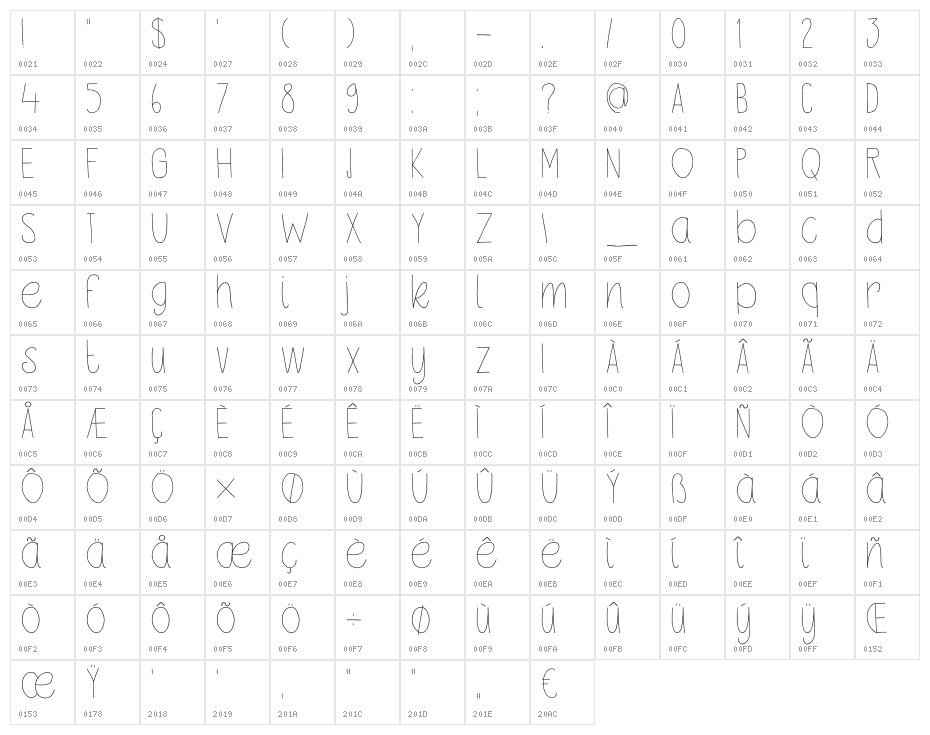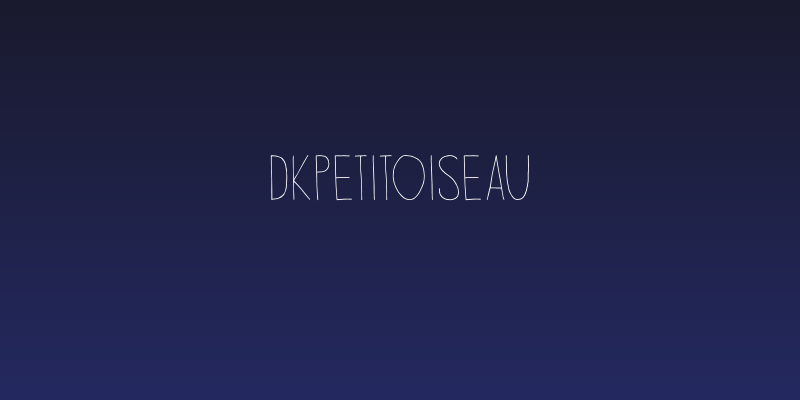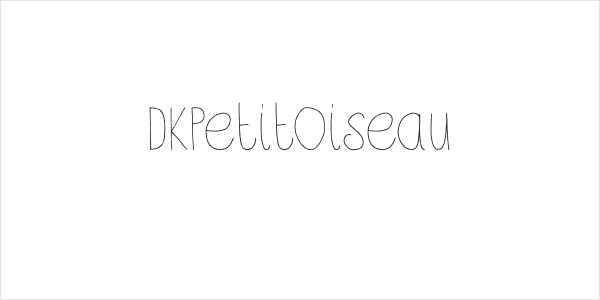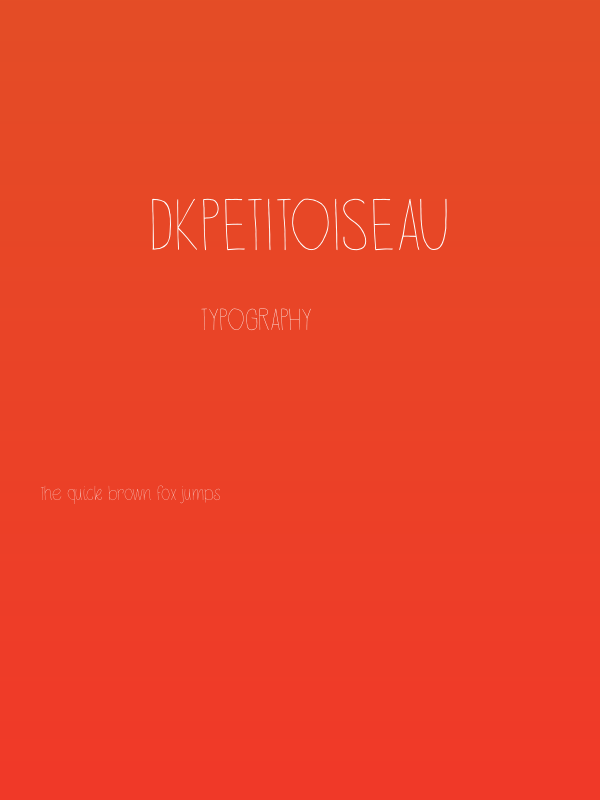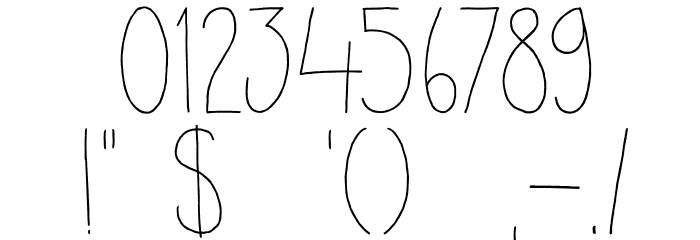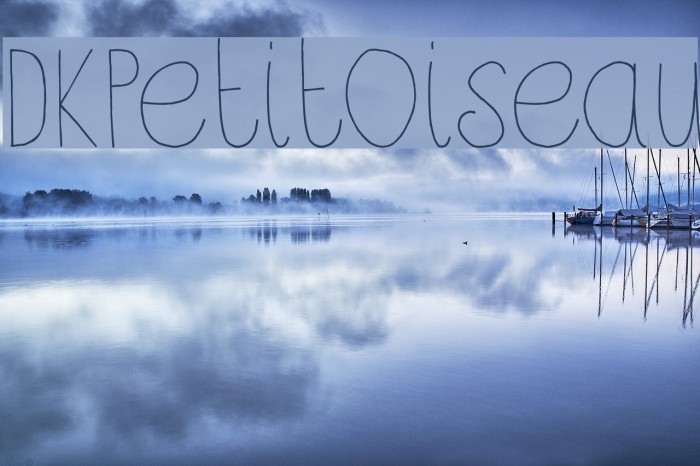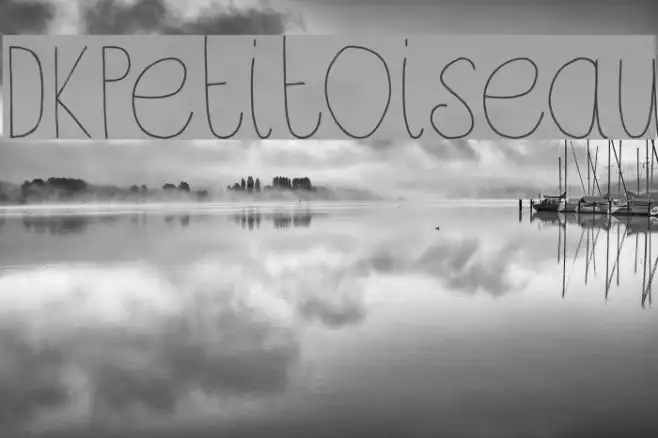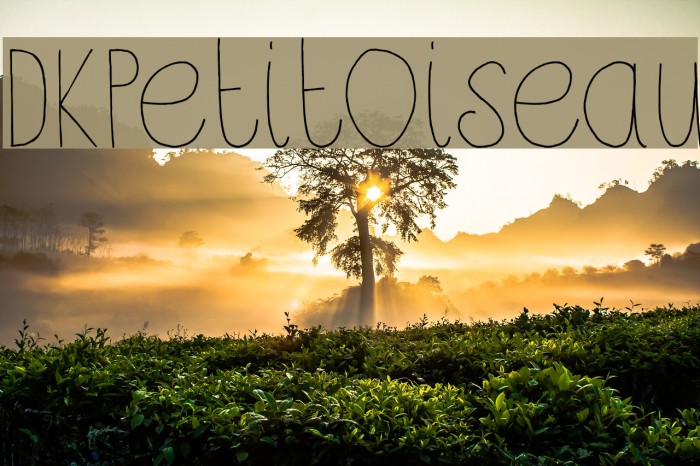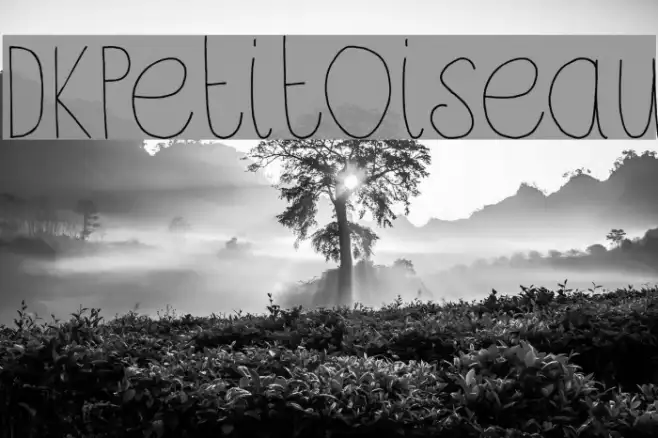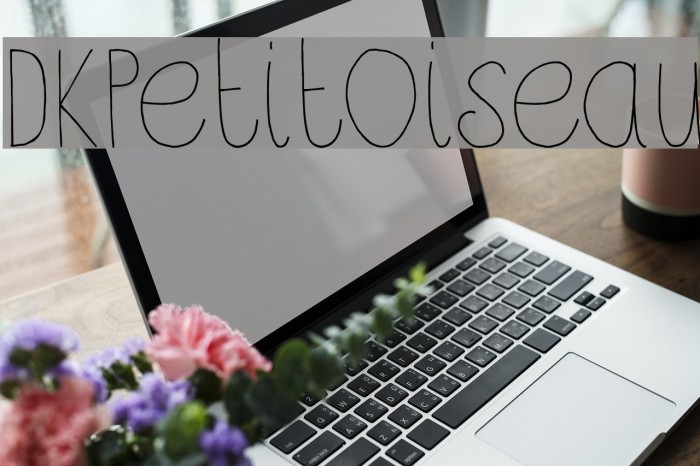
DKPetitOiseau Font
DKPetitOiseau Description
This font features a playful and whimsical handwritten style, characterized by its tall, narrow letters and slightly irregular line quality. The strokes are thin and consistent, giving it a light and airy appearance. The uppercase letters are slightly taller than the lowercase, maintaining a cohesive look. The numerals and special characters follow the same playful style, making it suitable for creative and informal designs. Its simplicity and charm make it versatile for various applications where a personal touch is desired.
| Width | Condensed |
| Overall Style | Whimsical |
| Use Case | Headlines, Logos, Invitations |
| Proposed Projects | Ideal for children's book covers, greeting cards, playful branding, and casual invitations. |